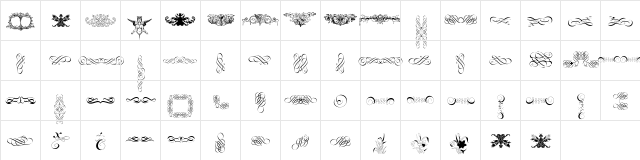
Cornucopia of Ornaments Regular
Design Context for Cornucopia of Ornaments Typeface
Cornucopia of Ornaments brings ornamental detail and strong personality to headlines and identities, where visual impact matters more than quiet functionality.
Font Pairing: Pair with a clean neutral sans-serif for body copy to let Cornucopia of Ornaments's character lead without overwhelming the composition.
Pro Tip: Use Cornucopia of Ornaments exclusively at display sizes — it was designed to be seen, not read at length. Let a neutral companion handle body copy.